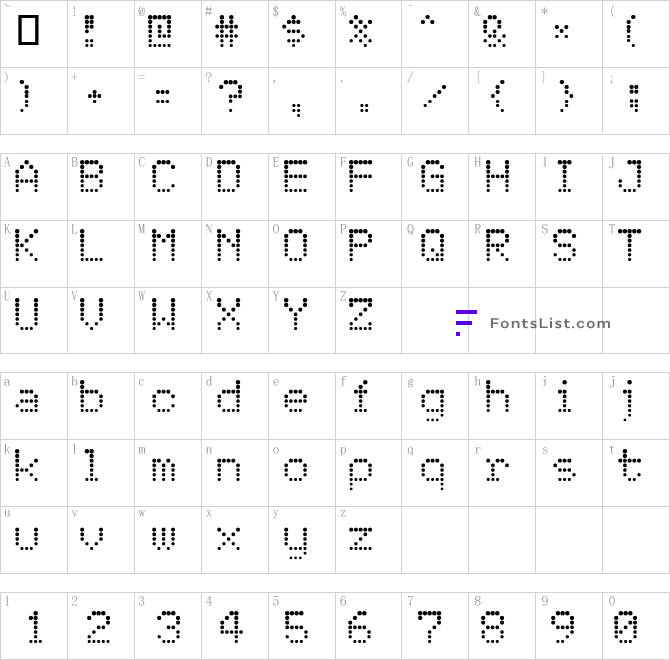
• Font Name:Atomic Clock Radio
Atomic-Clock-Radio.ttf is a very beautiful artistic font, Atomic-Clock-Radio.ttf is widely used in the design and printing of various books and pictures,Atomic-Clock-Radio.ttf has a strong visual impact,Atomic-Clock-Radio.ttf is a commonly used font in newspapers, magazines and books, and is used in posters, e-commerce Poster design, store design, logo design, font design and other fields.Atomic-Clock-Radio.